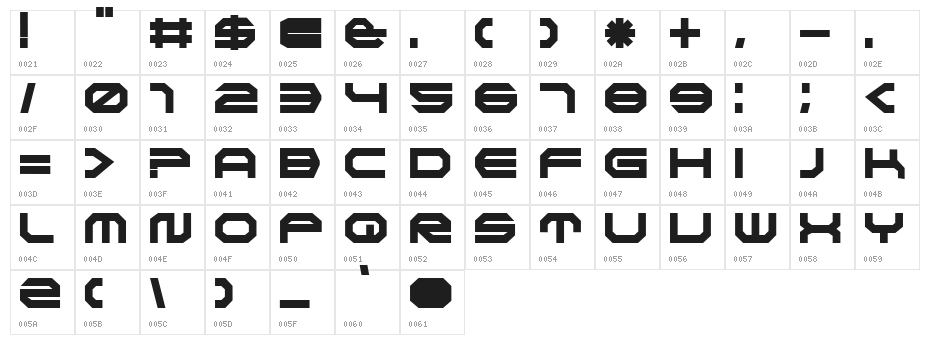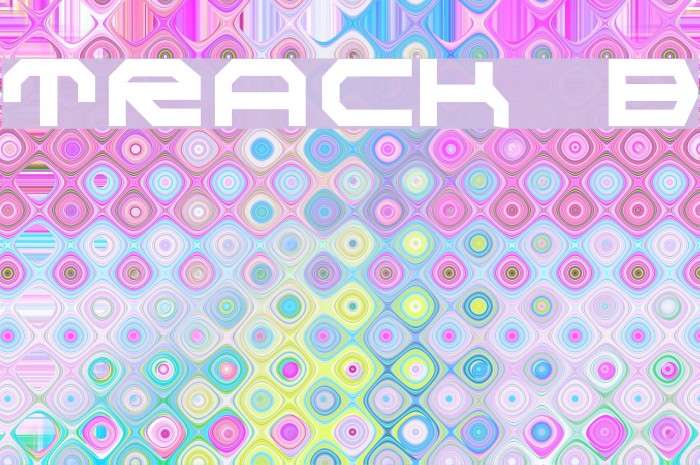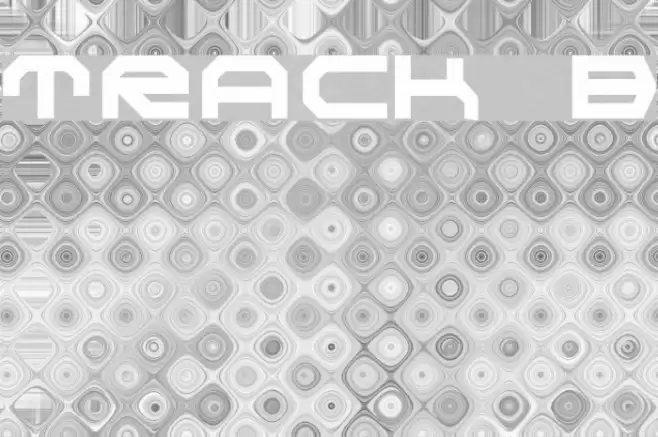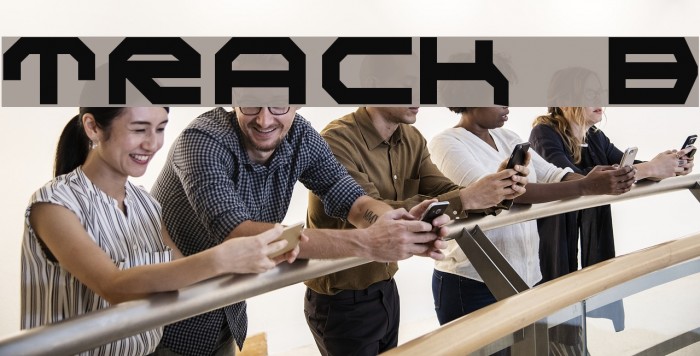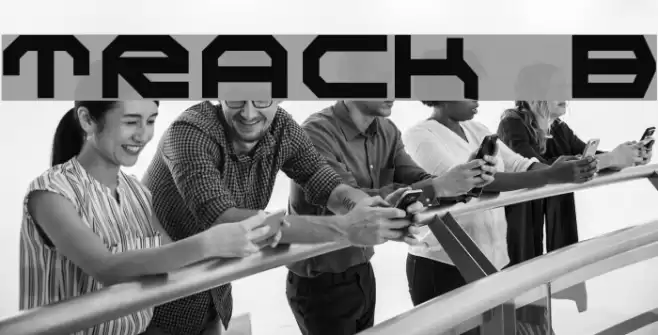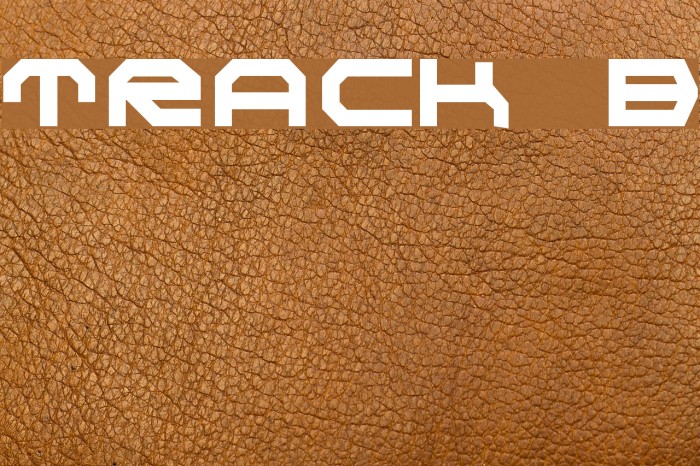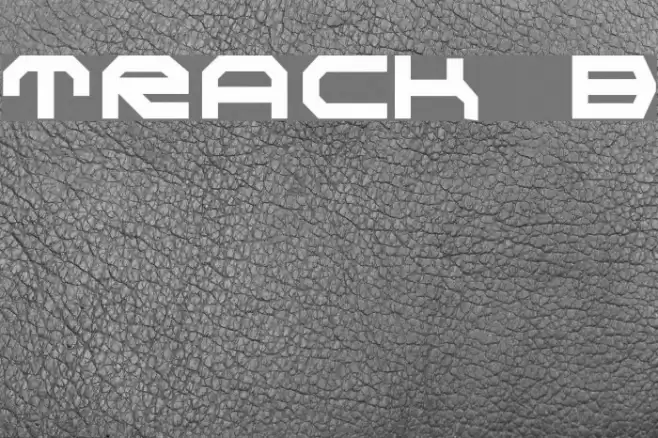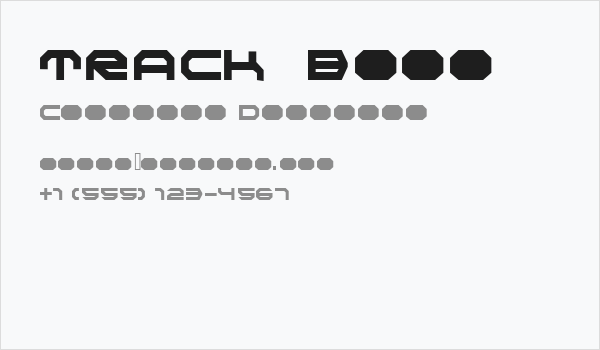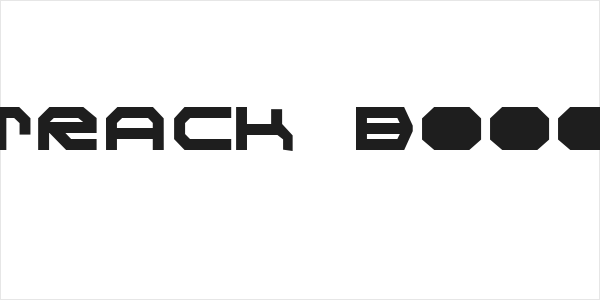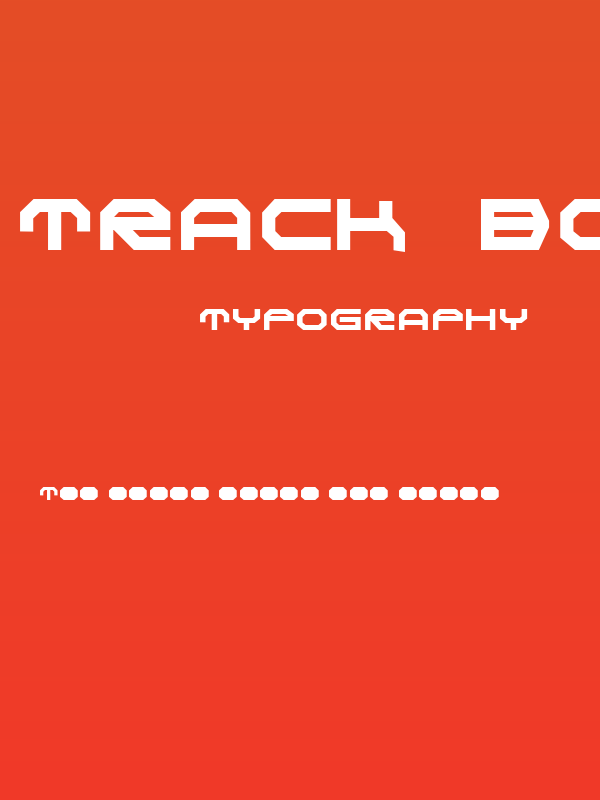
TRACK Bold Font
TRACK Bold Description
This font features a bold, geometric design with a futuristic aesthetic. The characters are constructed with sharp angles and straight lines, giving them a distinct, modern look. The uppercase letters are uniform in height, while the lowercase letters maintain a consistent style with slightly reduced size. Numbers and special characters follow the same angular design, ensuring a cohesive appearance across all glyphs. The font's boldness and unique style make it stand out, ideal for projects that require a strong visual impact.
| Proposed Projects | Ideal for technology branding, sci-fi themed projects, video game interfaces, and modern posters. |